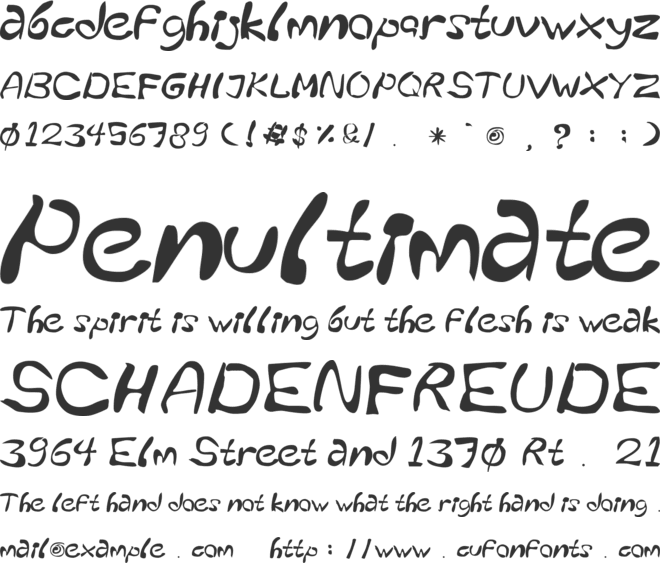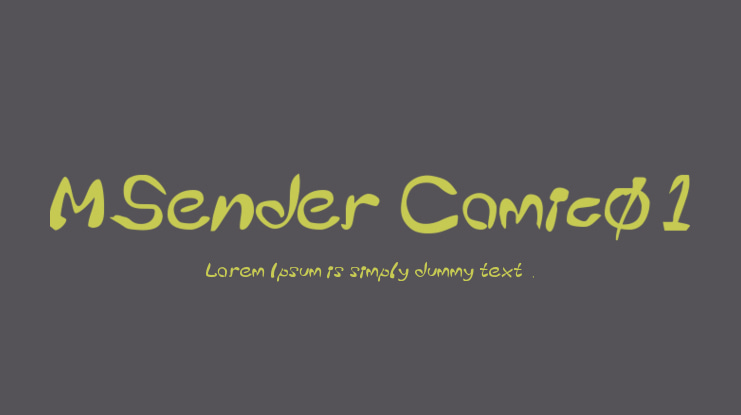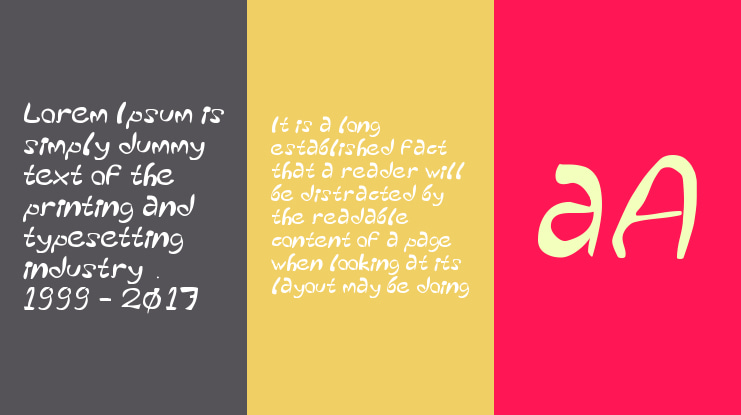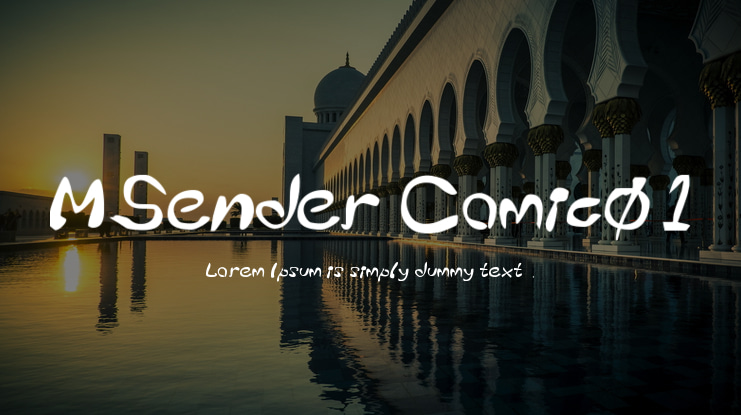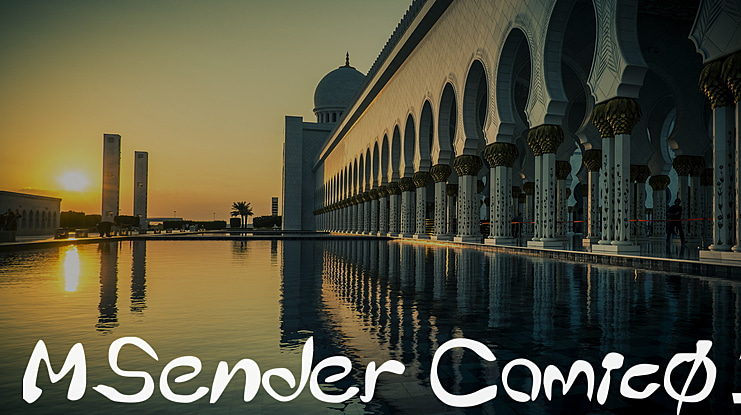
MSender Comic01 Font
Hello all, here is my first font / typeface. I did design this font for my comic fantasy book. Kerning and tracking has a free stylish freedom a little, many may consider bit of contemporary. Base line has a low sinus flux, and I did keep x height in and out. I know all these tiny mistakes were bit of intentional so that you would read, like you would go through space easy, like fly... So yes, I do hope that you would enjoy and be productive. And thank you kindly for choosing my freestyle font.